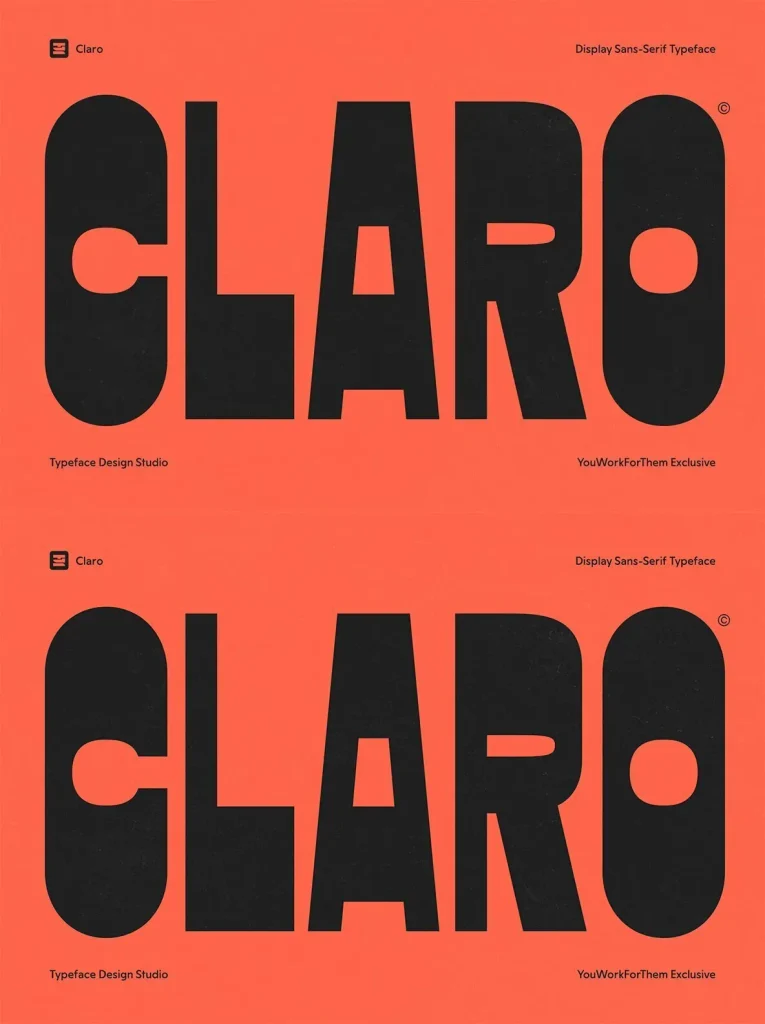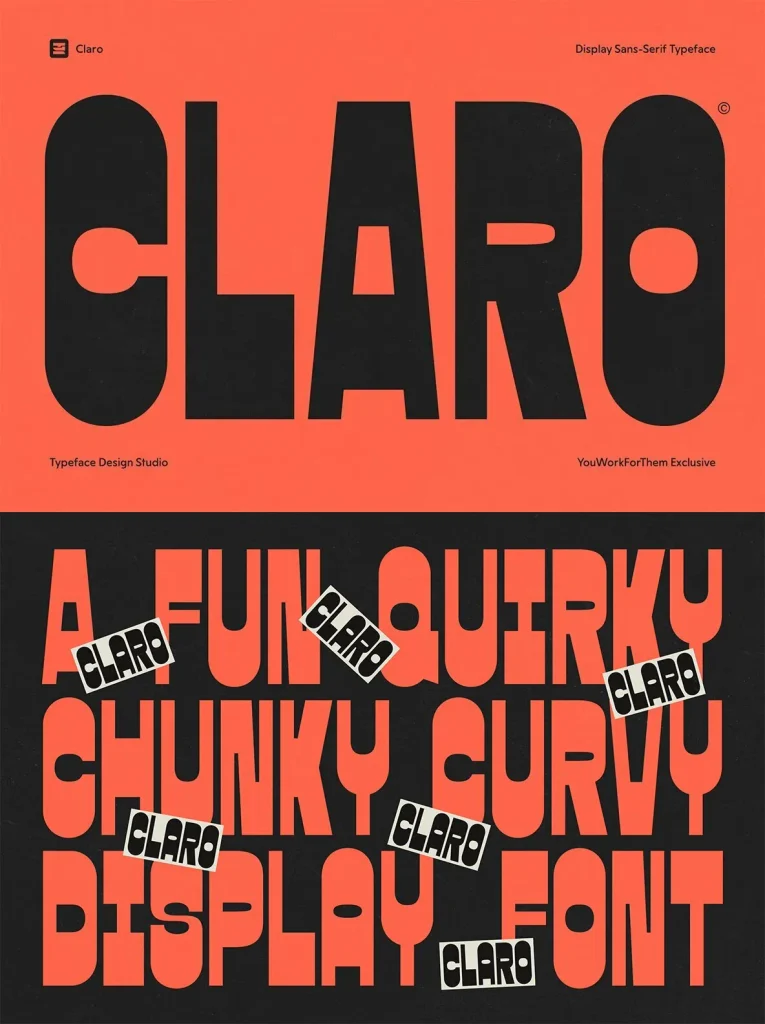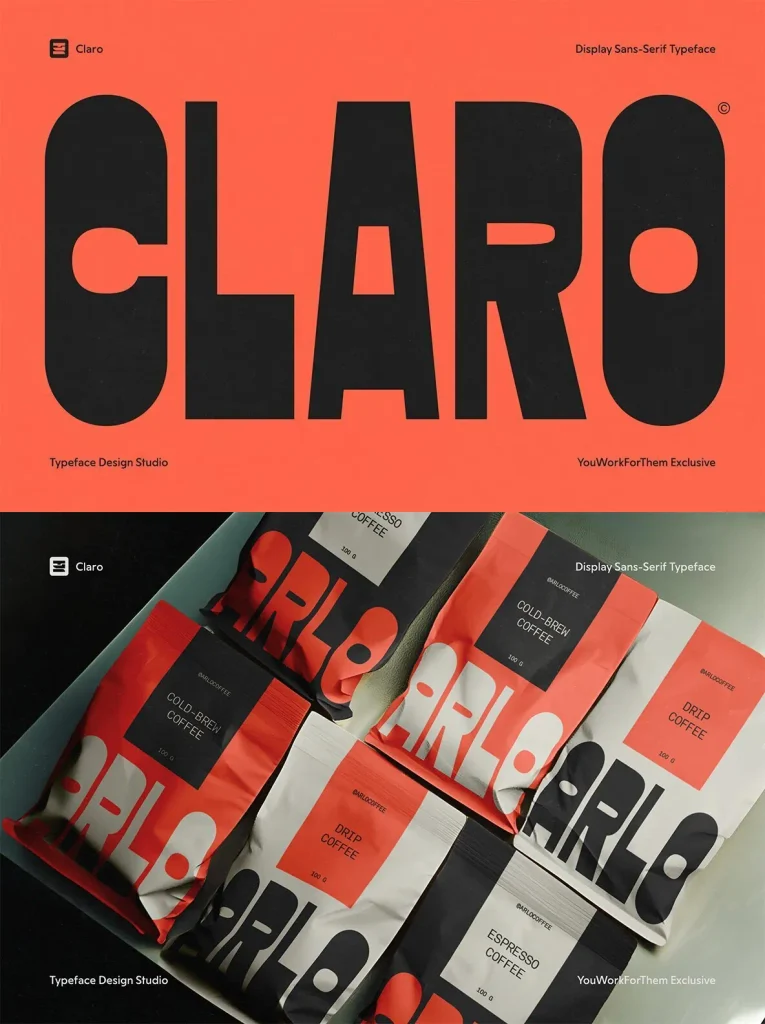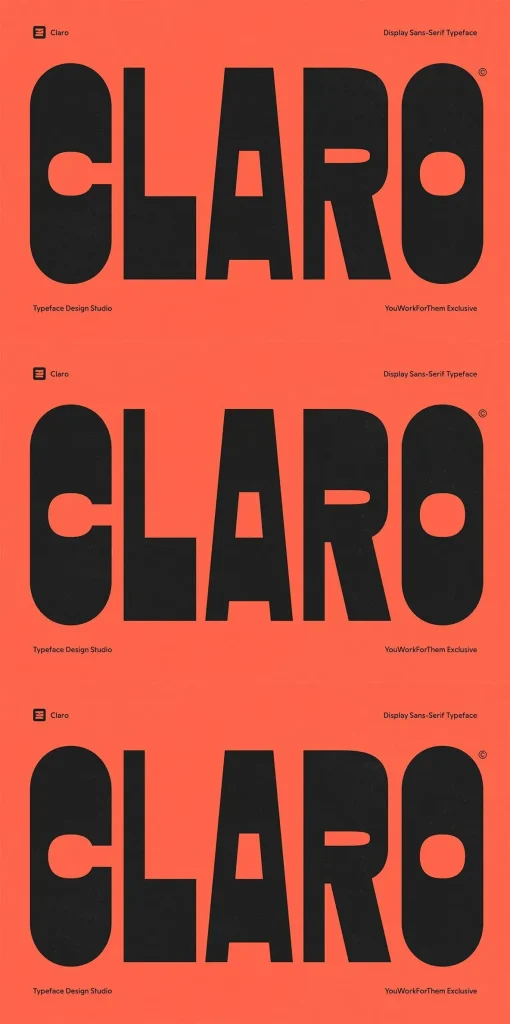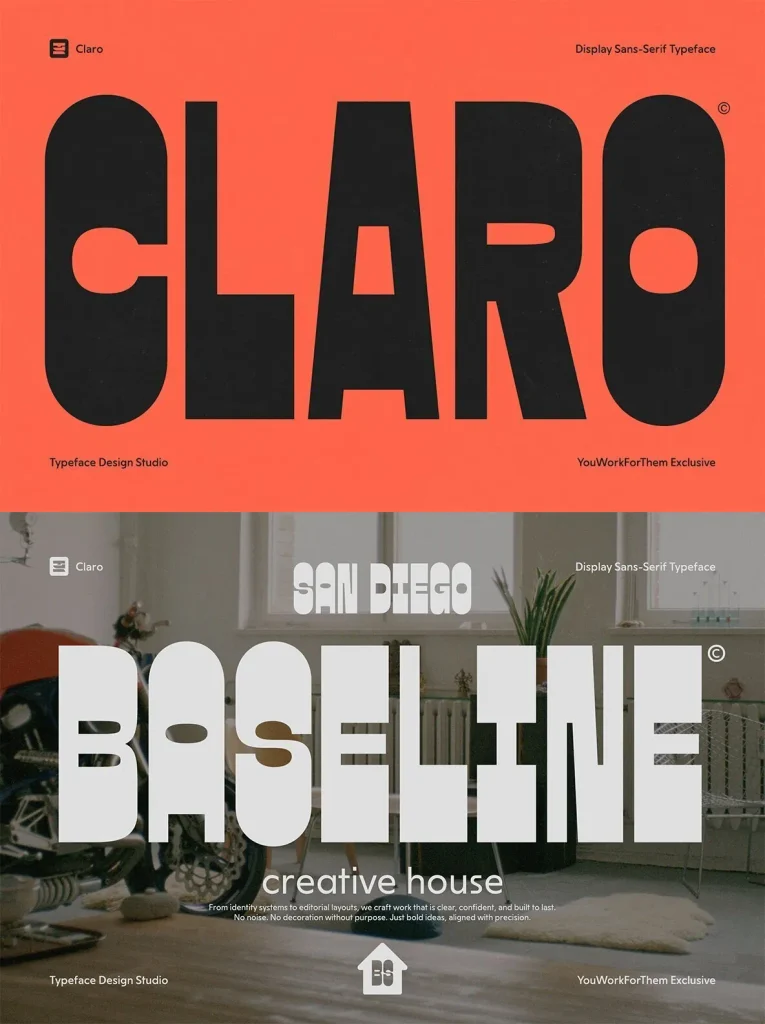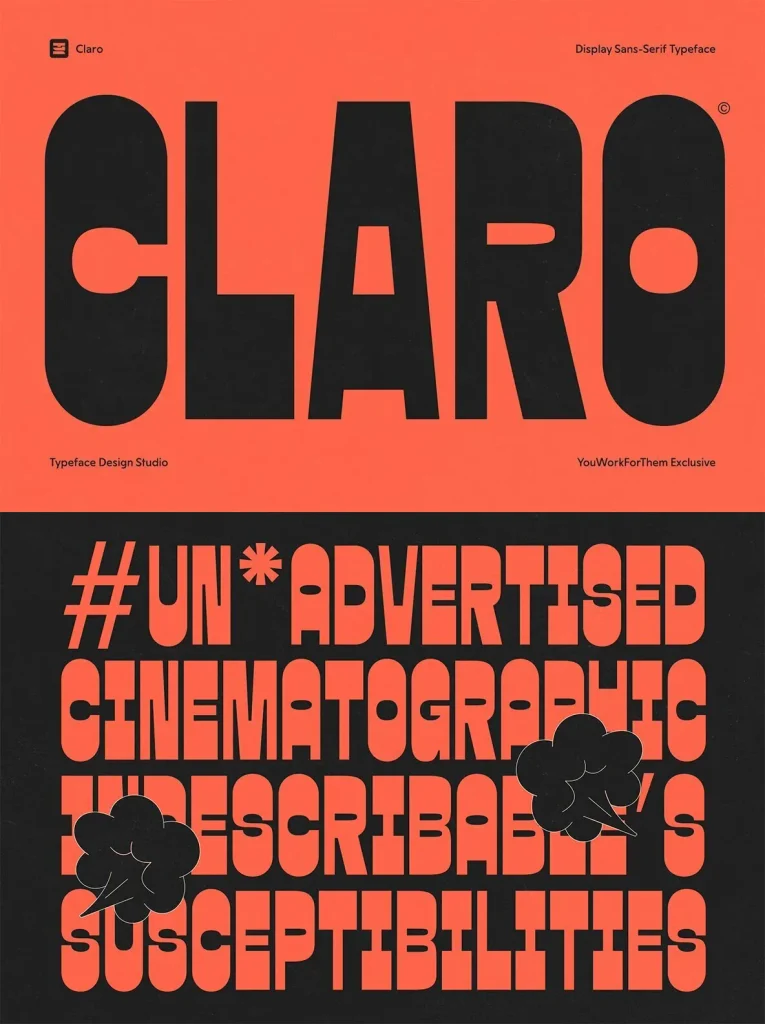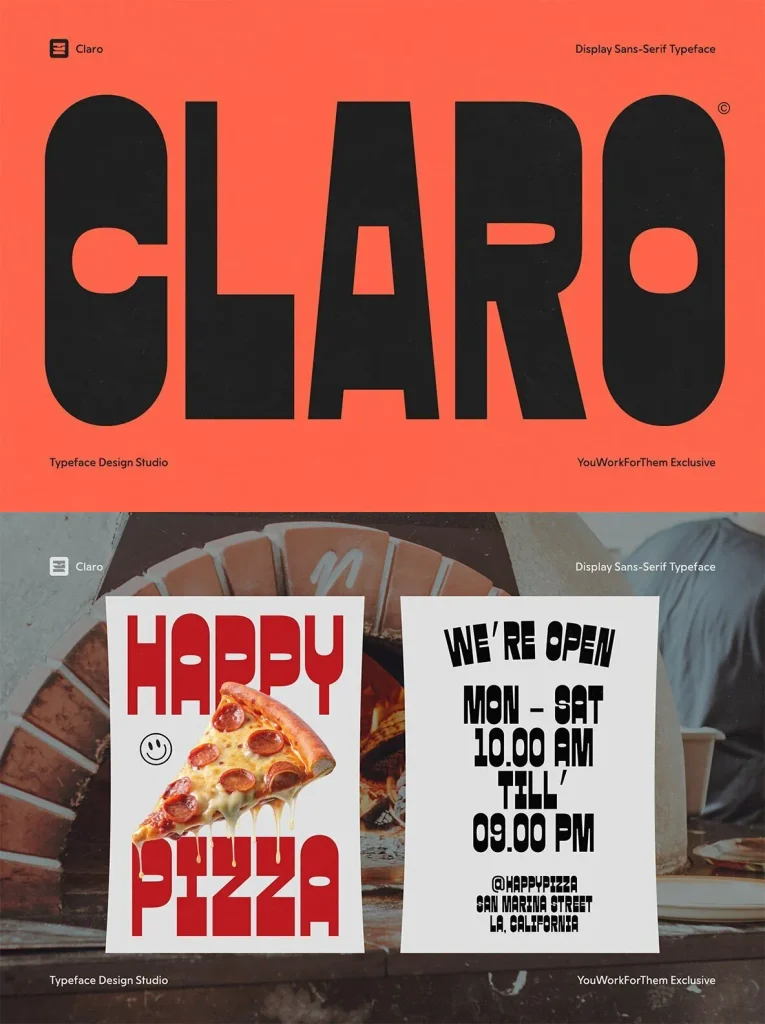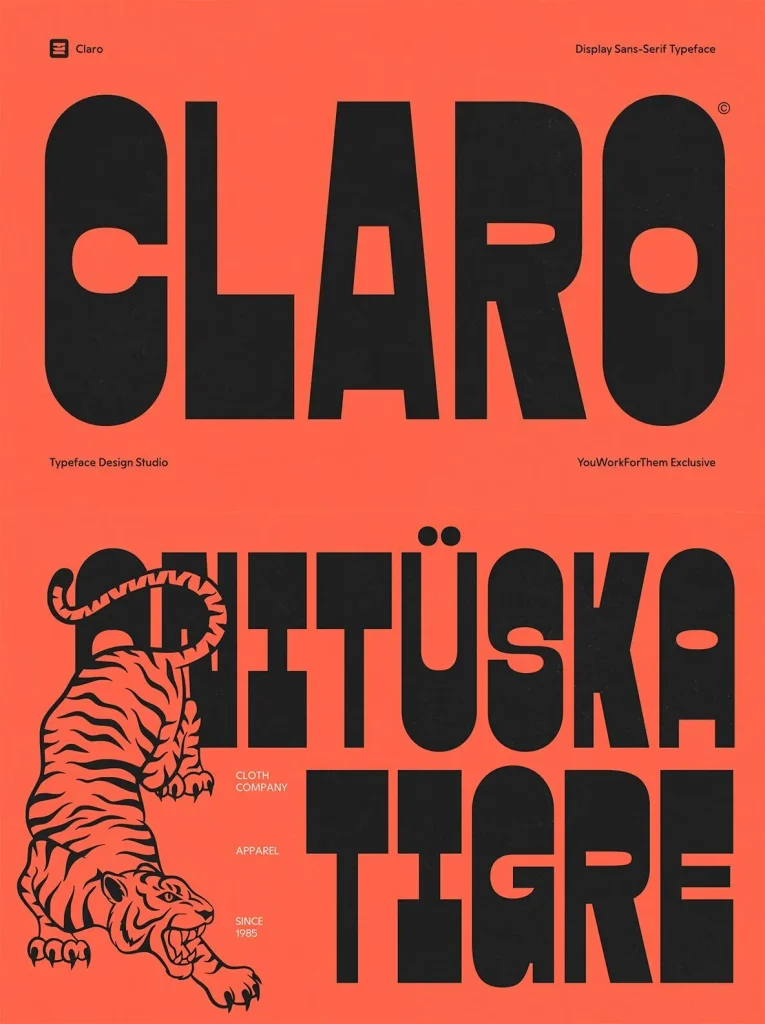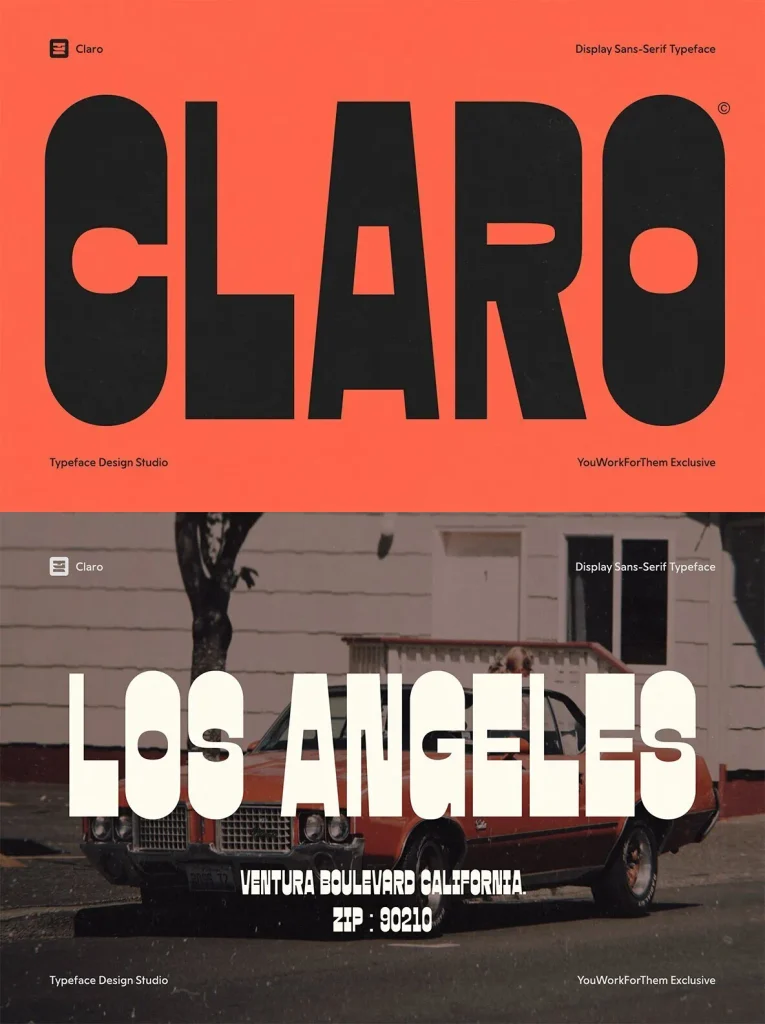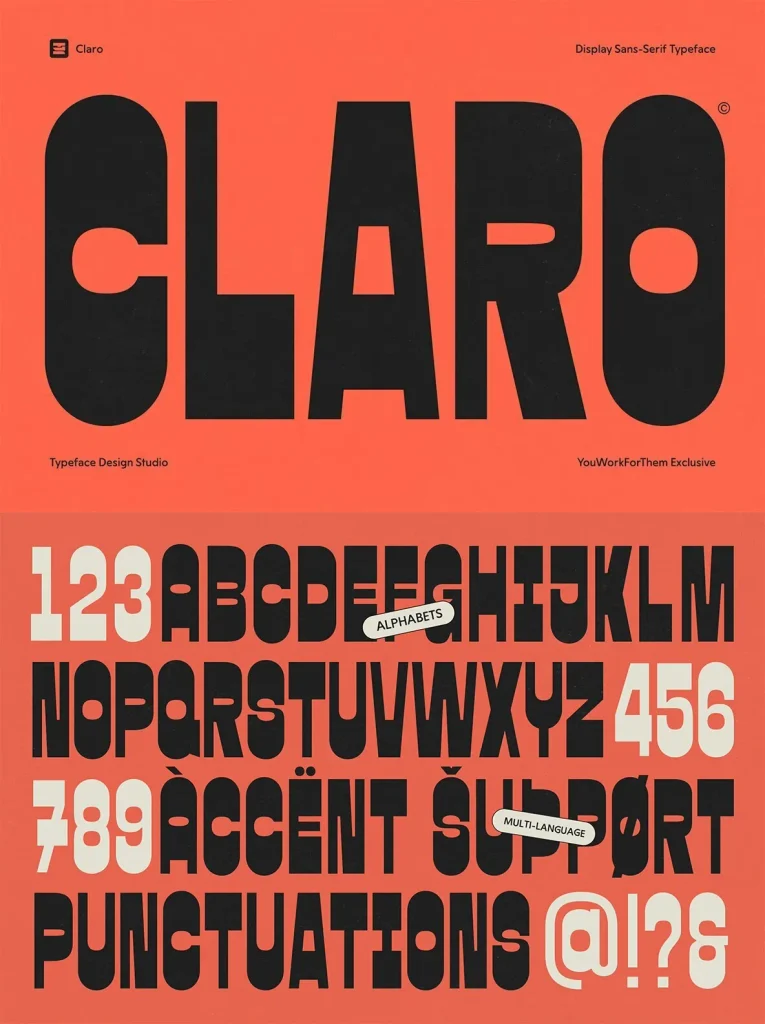
Claro Font
Claro Modern Display: Bold Sans With Reverse Contrast
Claro Sans brings a distinctive approach to sans-serif design. Its bold reverse contrast applies thick horizontals paired with thin verticals, resulting in a visual dynamic that stands out in editorial headlines, branding systems, and posters. This unique stroke rhythm balances clarity with contemporary personality and ensures text captures the viewer’s attention without sacrificing legibility.
Clean lines and modern proportions offer versatility for designers seeking a fresh typographic statement. Whether for sophisticated branding or striking title treatments, Claro’s confident character makes it suitable for a range of display-focused projects. The reverse contrast style introduces an unexpected dimension, delivering both clarity and intrigue to modern layouts.
Features:
Standard glyph set for essential typographic needs
Complete symbols and punctuation
Supports multiple languages